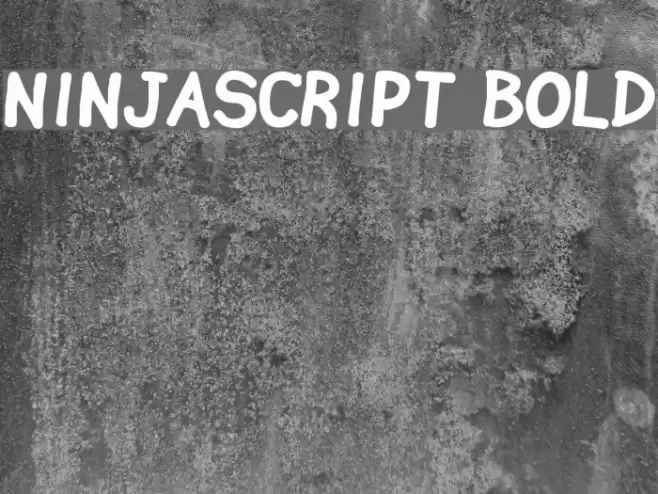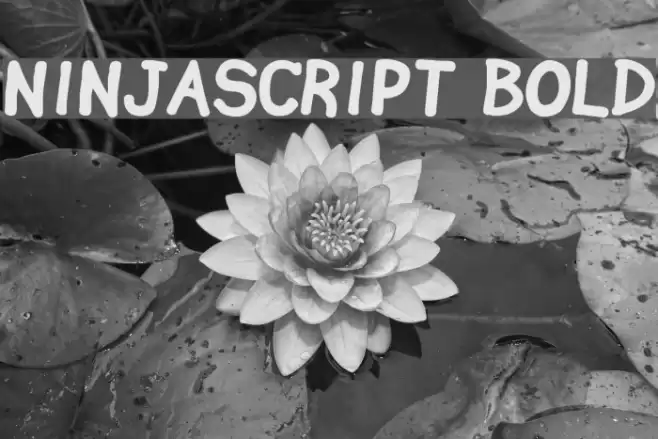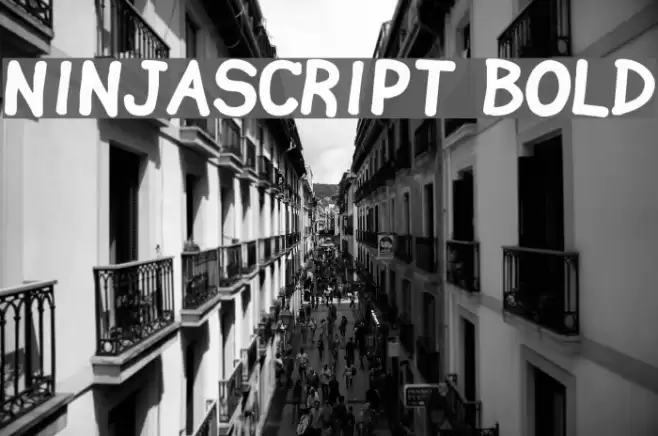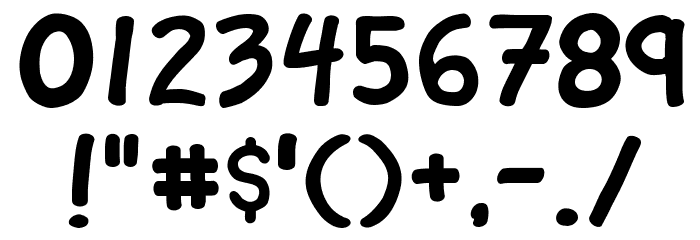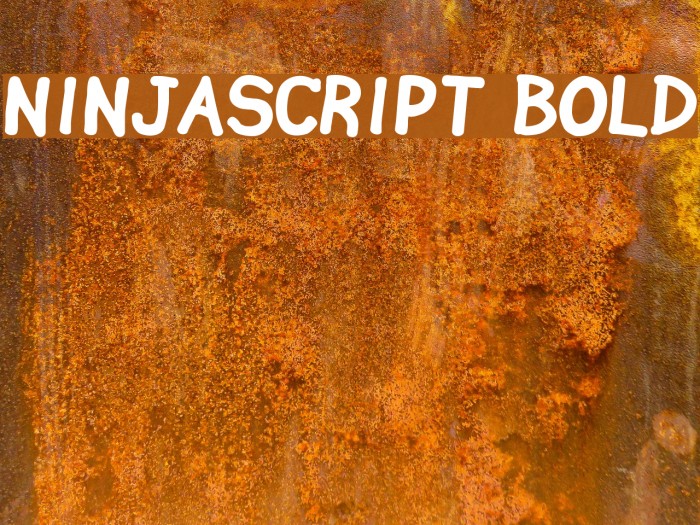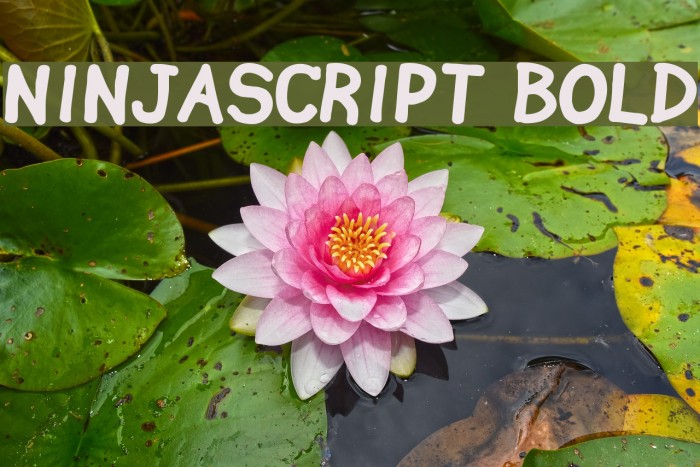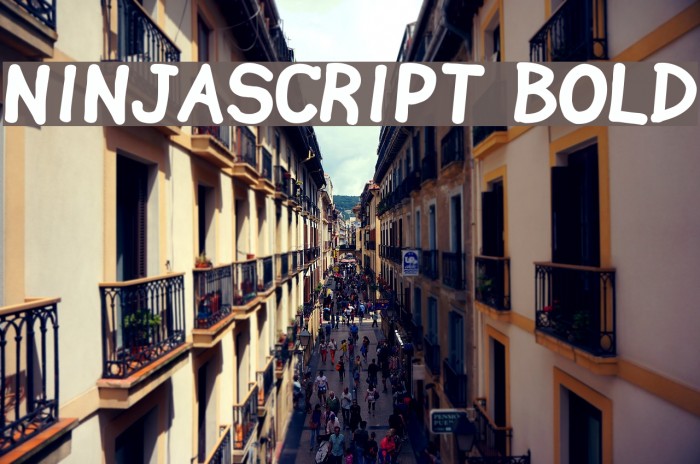
Ninjascript Bold Font
Ninjascript Bold Description
This font features a playful and bold handwritten style, characterized by its rounded and slightly irregular letterforms. The strokes are thick and consistent, giving it a strong presence on the page. The characters have a casual and friendly appearance, making it suitable for informal and creative projects. The font includes a full set of uppercase and lowercase letters, numbers, and a variety of special characters, all maintaining the same whimsical and bold aesthetic. Its unique style makes it stand out, adding a touch of personality to any design.
A bold, playful handwritten font with rounded, irregular letterforms from Uncategorized fonts.
- Overall Style: Playful